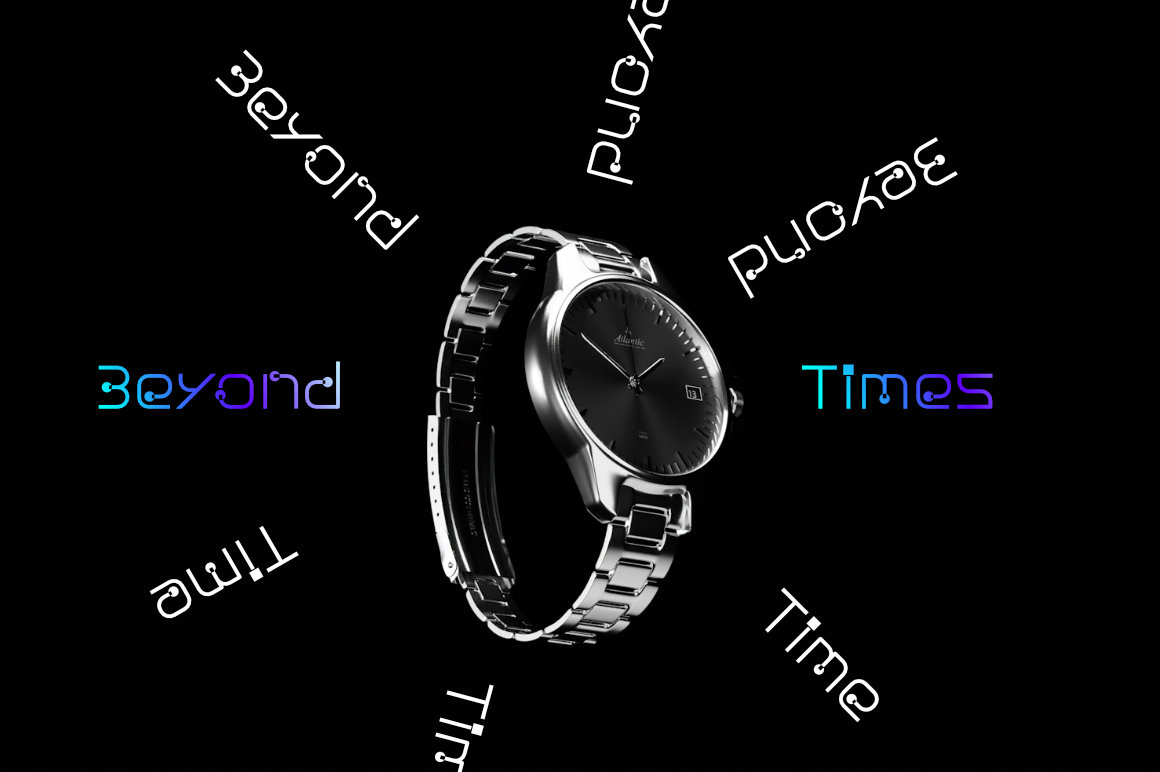
Nuixyber Inno Convert Digital Tech Font
In the realm of ones and zeros, where innovation reigns supreme, there exists a secret language. A language not spoken, but seen. A language that shapes the digital landscape, transforming cold code into breathtaking visuals.
It's a language of form and function, a symphony of curves and edges. A language that whispers tales of the future, a future where technology and artistry intertwine.
- Versatile Styles: Regular and Italic options for diverse design needs.